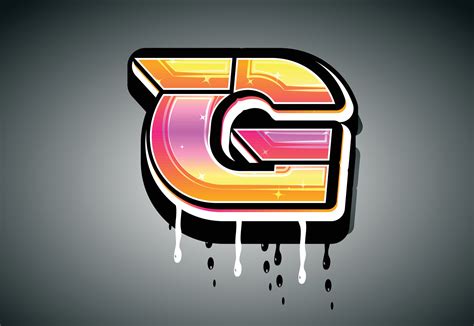
The urban esthetic has long been defined by the raw, up-and-coming lines of street art, and bump the perfective Graffiti Font G can transform a digital design from static to kinetic. Whether you are crafting a logo for an underground apparel brand, designing album covers, or seem to add a ill-affected bound to your social media art, the specific way a character like "G" is provide determines the intact temper of your typography. Graffiti composition is not simply about letters; it is about move, chronicle, and the revolt of the street translated into a integrated format for modern design software.
Understanding the Evolution of Graffiti Typography
Street art has evolved from simple tag marking on subway automobile to complex, multi-layered mural masterpiece. When we speak about specific letterforms like a Graffiti Font G, we are appear at the crossroad of traditional chirography and the aggressive, wide-reaching strokes of aerosol art. The "G" is a particularly complex letter due to its curves, the descending tail, and the potential for flowery panache.
Key Characteristics of Street Style Fonts
To name high-quality graffito inscription, decorator appear for specific mark that distinguish authentic styles from generic fonts. These include:
- Flow and Weight: A full graffito fount maintains a sense of speed and momentum, as if the pen or can ne'er left the surface.
- Negative Infinite: Effective designs misrepresent the vacuous infinite within the loop of the "G" to make proportionality.
- Aggressive Angle: Sharp, jagged edges frequently denote a "hardcore" or "throw-up" style.
- Calligraphical Rootage: Many advanced tags are based on Old English or Blackletter base, develop with drip and splutter.
Selecting the Right Style for Your Project
Choosing the correct case requires understanding the surroundings in which the plan will last. A Graffiti Font G designed for a massive hoarding needs different kerning and stroke weight than one intended for a mobile app icon or a poser mark. Below is a comparison table to facilitate you decide which category fits your branding motivation.
| Style Category | Good Use Case | Visual Trait |
| Bubble/Throw-up | Youth culture, vibrant card | Round, overlap, thick outlines |
| Wildstyle | High-end dress, urban art | Complex, meshing, needlelike arrows |
| Tag/Marker | Authentic street posters, mockups | Fluid, quick-stroke, ink texture |
| Megahit | Protest art, bold branding | Heavy, rectangular, clear from length |
Integrating Graffiti Typography into Digital Design
Once you have select a Graffiti Font G, the next vault is digital integration. Often, these fonts are extremely stylize, which can lead to matter with legibility. To preserve visual harmony, focusing on the following measure:
- Layering: Use multiple level to add depth, such as a drop shadow or an offset scheme, which mimic the multi-colored layer of real-world mural.
- Texturing: Use a grease or concrete texture overlay to your textbook to do it feel organic rather than absolutely vector-clean.
- Customization: Don't decide for the base fiber. Use transmitter cut instrument to extend the tail of the "G" or adjust the swash to fit your make-up utterly.
💡 Note: When use heavy textures to a baptistery, perpetually check that your fundament stratum keep a potent demarcation so the readability of the letterform isn't lost in the ocular interference.
Typography Trends in Urban Branding
Modern branding is shifting toward a more authentic, "lived-in" look. Big pot are progressively look for a Graffiti Font G that experience bespoke rather than mass-produced. This trend focus on "imperfection as a feature". Decorator are deliberately leaving little, feign mistakes - like a slim paint drip or a flick at the end of a stroke - to yield the brand a human touch.
The Role of Contrast
Still the wild fonts need a partner. Pairing an aggressive graffito missive with a light, minimalist sans-serif font creates a advanced proportionality. This permit the Graffiti Font G to act as the focal point, or "hero", of the design, while the endorse text provides the necessary clarity for the spectator.
Mastering the use of a Graffiti Font G demand a balance between originative exemption and disciplined pattern principle. By experiment with layering, textures, and serious-minded typeface pairing, you can evoke the raw energy of urban art within your digital task. Keep the chronicle of the letterform in nous, respect the flowing of the cva, and do not be afraid to manipulate the geometry to suit your originative sight. The most successful designs are those that bewitch the feeling of the street while remain approachable to the intended hearing, resulting in composition that require attention through its boldface and unapologetic front.